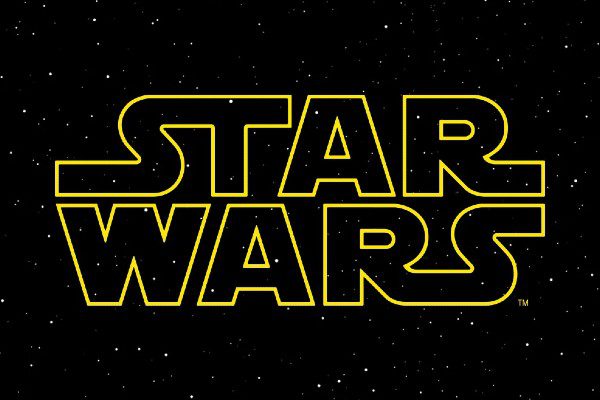
The name of the free Star Wars font that looks most like the lettering used in the original movie logo, is a typeface by the name of SF Distant Galaxy. This font was created by the design team at the ShyFonts foundry.
The Star Wars font brings a sense of adventure and curiosity to any project. Any text set in this font will look like it came straight from a galaxy far, far away. This font is perfect for any project with an otherworldly feel. How the fonts are designed commands attention and create a look that is unique and easy to read. Functional and aesthetic, this font is an excellent choice for headlines, posters, and other design projects you have in mind. Just type in the words or phrases you'd like to use and watch the Star Wars font do its magic!
The Star Wars franchise is the highest-grossing media franchise of all time. Lucasfilm released the film Star Wars (later retitled Star Wars: Episode IV - A New Hope) in 1977 and received immense success. This was later followed by the Star War sequels such as The Empire Strikes Back and Return of the Jedi. The original trilogy consists of these three films. Later, a prequel trilogy consisting of The Phantom Menace, Attack of the Clones, and Revenge of the Sith was released. In 2012, The Walt Disney Company purchased Lucasfilm for $4.06 billion and announced that it would produce three new films, with the first film, Star Wars: The Force Awakens, released on December 18, 2015. The Star Wars franchise has spawned extensive media popularity, including books, television series, video games, and theme park attractions.